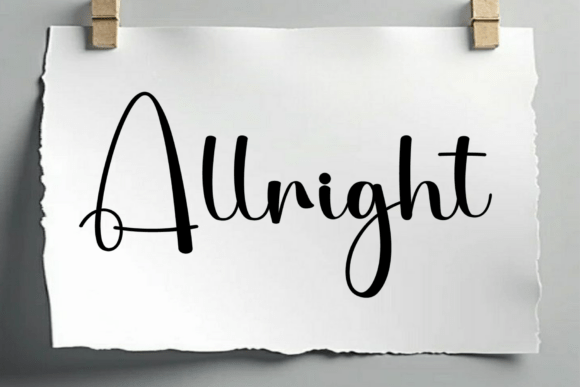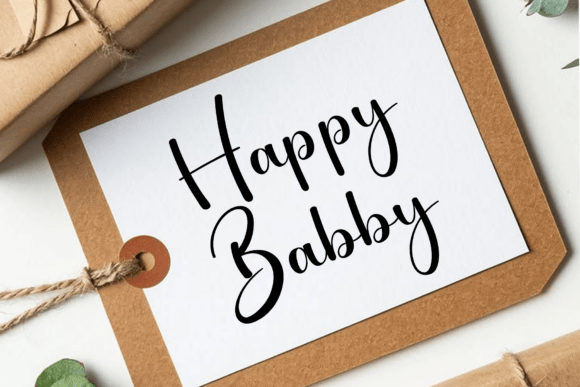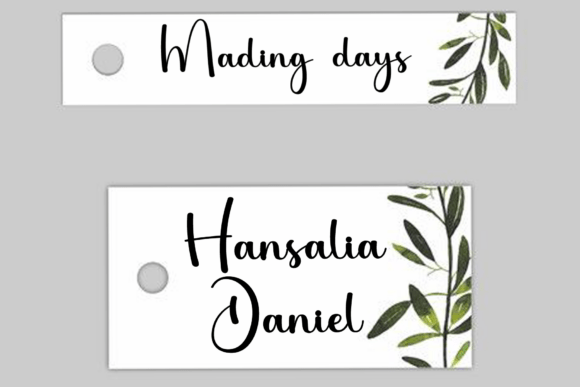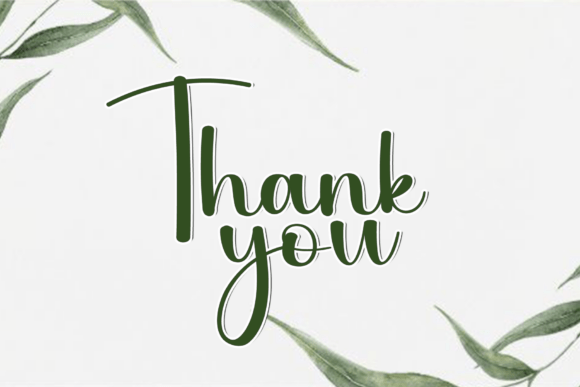
Diligents Font: Elevate Your Brand with Sophisticated Script Style
In the world of typography, a font can make or break a brand’s identity. For designers and crafters seeking to elevate their visual storytelling, Diligents Font is a game-changer. This sophisticated and rhythmic script font strikes the perfect balance between calligraphic style and warm, organic aesthetic, making it an ideal choice for artisanal food branding, boutique product packaging, upscale lifestyle marketing, and creative editorial titles.
The Distinctive Charm of Diligents Font
So, what sets Diligents Font apart from other script fonts? The answer lies in its defining characteristic: sweeping, looping ascenders that create a sense of customized, artisanal artistry. These elegant flourishes add a touch of sophistication and whimsy, infusing your brand with a unique personality that stands out from the crowd. Whether you’re looking to create a luxurious brand image or convey a sense of handmade craftsmanship, Diligents Font is the perfect tool for the job.
Crafting a Unique Brand Identity with Diligents Font
For artisanal food brands, boutique product packaging, and upscale lifestyle marketers, Diligents Font offers a wealth of creative possibilities. Here are just a few ways you can leverage this versatile font to elevate your brand:
- Artisanal Food Branding: Use Diligents Font to create eye-catching labels, packaging, and marketing materials that evoke the care and craftsmanship that goes into your products.
- Boutique Product Packaging: Add a touch of luxury and sophistication to your product packaging with Diligents Font, perfect for high-end cosmetics, jewelry, and fashion accessories.
- Upscale Lifestyle Marketing: Create engaging editorial content, social media graphics, and advertising campaigns that showcase your brand’s refined taste and style.
- Creative Editorial Titles: Use Diligents Font to add a touch of elegance and whimsy to your editorial titles, perfect for fashion magazines, lifestyle blogs, and creative publications.
Why Designers and Crafters Love Diligents Font
So, why do designers and crafters love working with Diligents Font? Here are just a few reasons:
- Unique and Versatile: Diligents Font offers a distinctive blend of calligraphic style and organic aesthetic, making it perfect for a wide range of creative projects.
- Elegant and Sophisticated: The sweeping, looping ascenders in Diligents Font add a touch of luxury and refinement to any design, perfect for high-end brands and creative projects.
- Easy to Read and Customize: Despite its elegant appearance, Diligents Font remains highly legible, making it easy to read and customize for your specific design needs.
Tips for Getting the Most Out of Diligents Font
To unlock the full potential of Diligents Font, here are a few tips to keep in mind:
- Experiment with Font Sizes: Diligents Font looks stunning in a variety of font sizes, from large display headings to smaller body text.
- Play with Color and Texture: Add depth and visual interest to your designs by experimenting with different colors and textures that complement the warm, organic aesthetic of Diligents Font.
- Mix and Match with Other Fonts: Don’t be afraid to combine Diligents Font with other fonts to create a unique visual hierarchy and add contrast to your designs.
In conclusion, Diligents Font is a sophisticated and versatile script font that offers a unique blend of calligraphic style and warm, organic aesthetic. With its sweeping, looping ascenders and elegant appearance, this font is perfect for artisanal food branding, boutique product packaging, upscale lifestyle marketing, and creative editorial titles. Whether you’re a designer or crafter, Diligents Font is sure to elevate your brand and add a touch of luxury to your visual storytelling.